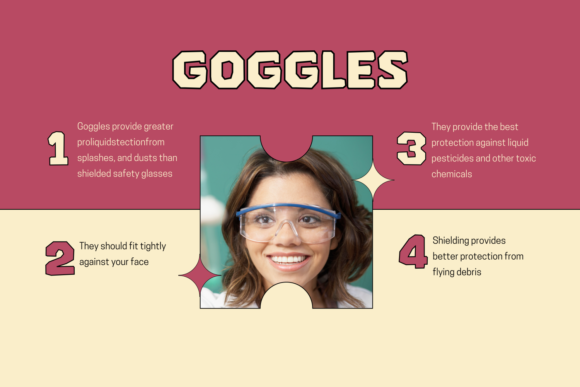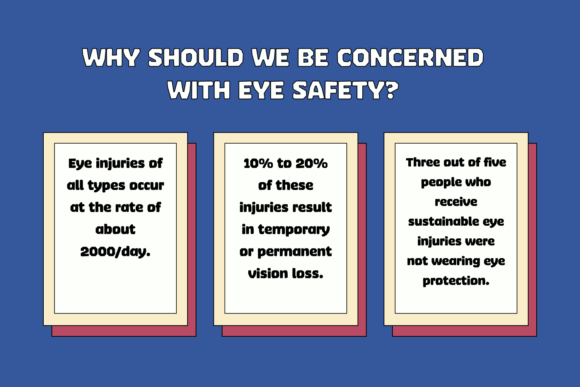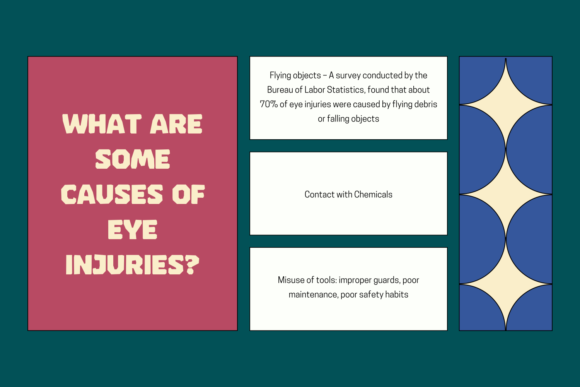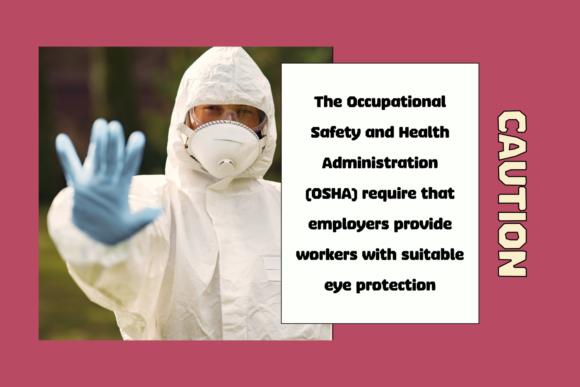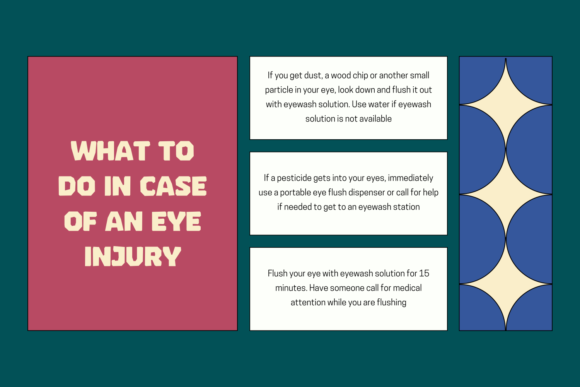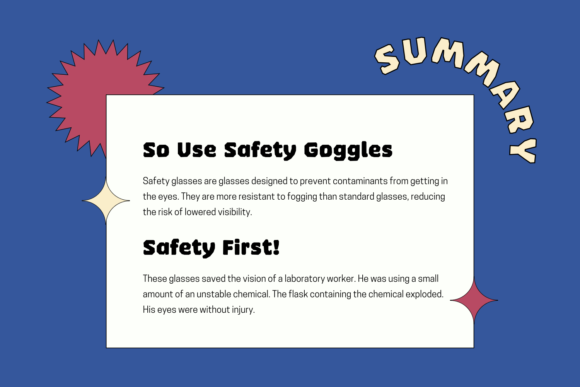
Introduction to Safety Goggles Font
As I sat at my desk, staring at a blank canvas, I knew I needed the perfect font to bring my latest design project to life. I was searching for something that exuded confidence, something that would grab the viewer’s attention and never let go. That’s when I stumbled upon the Safety Goggles Font – a bold, strong, masculine display font that I just knew was going to be the perfect fit.
What I love about the Safety Goggles Font is its high-quality design, which makes it perfect for a wide range of creative projects. Whether you’re working on a logo, a quote, or a blog post, this font is sure to make your design stand out. Plus, with its transparent background, you can easily use it as a design resource for your next project.
As a designer, having access to a versatile and free download like the Safety Goggles Font is invaluable. It opens up a world of creative possibilities and allows you to bring your ideas to life in a way that’s both unique and visually stunning. In this article, we’ll take a closer look at the Safety Goggles Font and explore its many uses and benefits.
Key Features of Safety Goggles Font
- High-quality design: The Safety Goggles Font is a well-crafted font suitable for various creative projects, offering a unique and modern aesthetic.
- Transparent background: This font features a transparent background, making it easy to layer and customize in graphic design applications.
- High-resolution design: The font is designed at 300 DPI, making it suitable for high-resolution printing and digital displays.
- Unique characteristics: The Safety Goggles Font features a distinctive design, with bold lines and a futuristic feel, setting it apart from other fonts in its category.
- Perfect for creative projects: This font is ideal for designers working on creative projects, such as graphic design, branding, and advertising, where a unique and modern look is required.
Honest Review: Safety Goggles Font
I recently had the chance to work with the Safety Goggles Font, and I have to say it’s a unique and interesting addition to any design project. The font’s quirky, futuristic aesthetic makes it perfect for creative projects that require a bold, eye-catching look.
Here are some things that work well with this font:
- High-quality design: The font is crisp and clear, with smooth lines and well-defined shapes.
- Transparent background: This makes it easy to place the font over a variety of backgrounds, from bright and bold to dark and muted.
- ⚠️ Limited character set: The font only includes a limited range of characters, which may not be suitable for more complex design projects.
- ⚠️ May not be suitable for small text: The font’s bold lines and futuristic aesthetic can make it difficult to read in small text sizes.
Overall, I think the Safety Goggles Font is a great addition to any design resource library. It’s perfect for creative projects that require a bold, eye-catching look, but may not be suitable for more complex or nuanced design work.